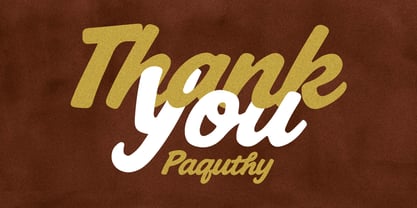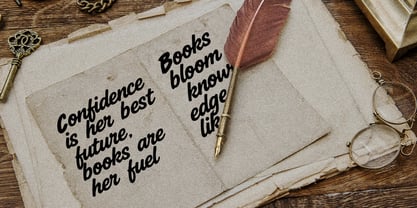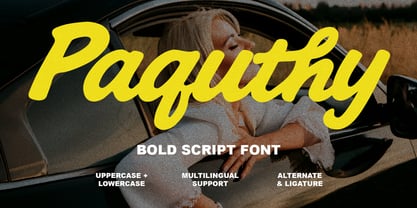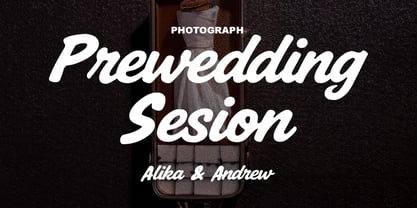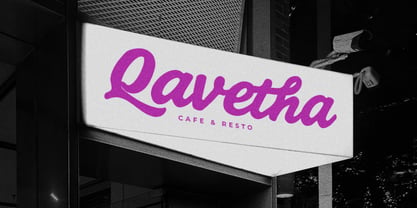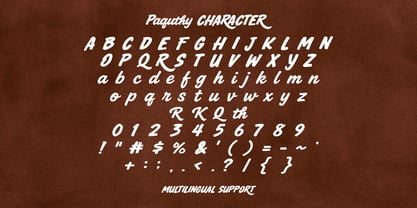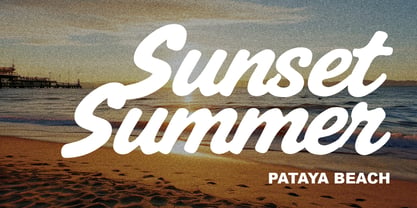
Paquthy
por Maulana Creative
La familia tipográfica Paquthy fue diseñada por Gilang Maulana y publicada por Maulana Creative. Paquthy contiene 1 estilos. Más información sobre esta familia
Paquthy is a bold script font designed to bring energy, expression, and confidence to any visual project. Featuring strong, rounded strokes and smooth cursive connections, this typeface effortlessly balances retro retro charm with modern versatility. Equipped with uppercase and lowercase letters, numerals, punctuation, alternate characters, ligatures, and multilingual support, it provides endless flexibility for creating eye-catching typography.
This versatile font is perfect for branding projects, logo design, photography watermarks, packaging, social media graphics, signage, and headline typography. Whether creating romantic wedding layouts, vibrant summer event posters, or sleek restaurant signage, Paquthy adds a distinct handwritten touch that demands attention and elevates overall design aesthetics.
Diseñadores: Gilang Maulana
Fundición: Maulana Creative